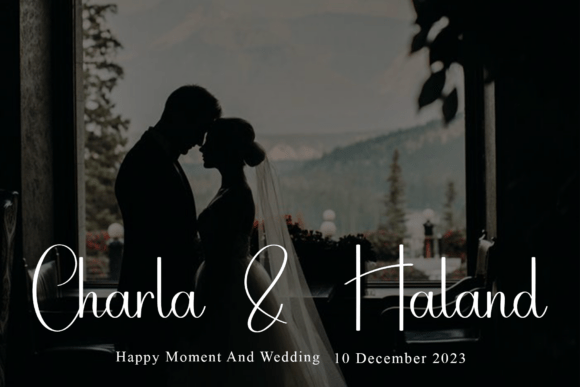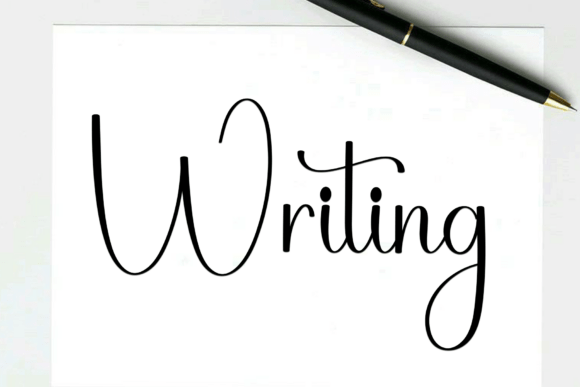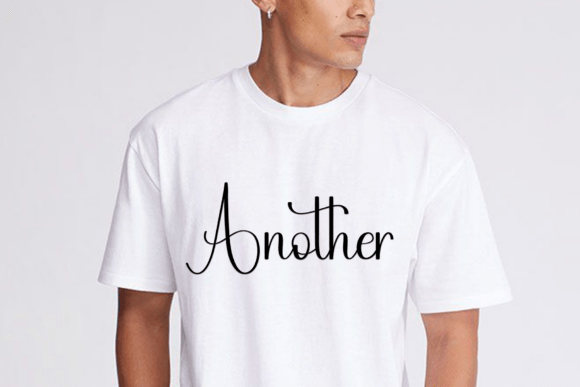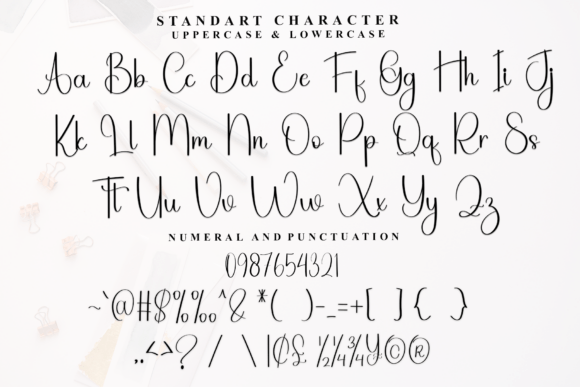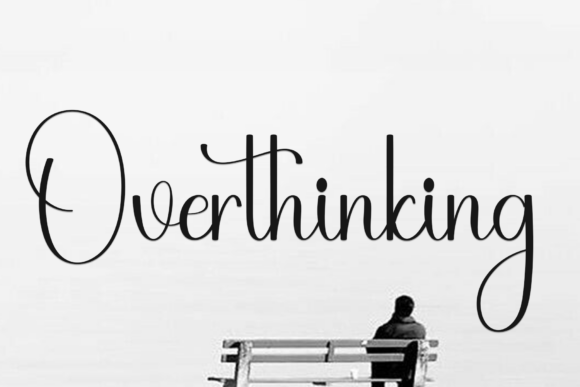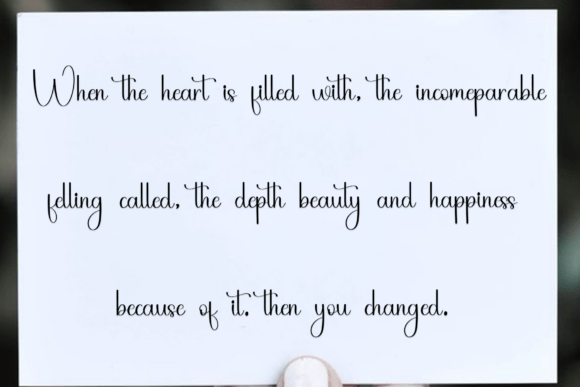
Better Candy Font: The Sweetest Addition to Your Design Collection
Are you a designer or crafter looking for a font that adds a touch of whimsy and playfulness to your projects? Look no further than the Better Candy font! This sweet and charming handwritten font is perfect for creating eye-catching candy packaging, quotes, greeting cards, and kid-friendly branding.
What Makes Better Candy Font So Special?
Better Candy is a carefully crafted font that boasts smooth strokes and charming curves, giving it a unique and delightful feel. Its playful and whimsical nature makes it an excellent choice for designs that require a touch of fun and personality. Whether you’re creating a brand identity for a children’s toy company or designing a colorful candy wrapper, Better Candy font is sure to bring a smile to your audience’s faces.
Key Features of Better Candy Font
- Smooth Strokes: Better Candy font features smooth, flowing strokes that give it a natural and effortless look.
- Charming Curves: The font’s charming curves add a touch of whimsy and playfulness, making it perfect for kid-friendly designs.
- Handwritten Style: Better Candy font has a beautiful handwritten style that adds a personal touch to any design.
- Versatile: This font is versatile and can be used for a wide range of design projects, from candy packaging to greeting cards.
Perfect Uses for Better Candy Font
Better Candy font is ideal for a variety of design projects, including:
- Candy Packaging: Add a touch of sweetness to your candy packaging with this delightful font.
- Quotes and Sayings: Use Better Candy font to create eye-catching quotes and sayings for social media, posters, or greeting cards.
- Greeting Cards: Create playful and fun greeting cards for kids’ birthdays, holidays, or special occasions.
- Kid-Friendly Branding: Use Better Candy font to create a brand identity that’s fun, playful, and engaging for kids.
Tips for Using Better Candy Font
- Pair with Bold Fonts: Pair Better Candy font with bold fonts to create a striking contrast and add visual interest to your design.
- Experiment with Colors: Better Candy font looks great in bright, bold colors. Experiment with different color combinations to find the perfect fit for your design.
- Use for Headlines: Use Better Candy font for headlines or titles to add a touch of whimsy and playfulness to your design.
- Is Better Candy font suitable for body text? While Better Candy font is beautiful for headlines and titles, it may not be suitable for body text due to its playful and cursive nature.